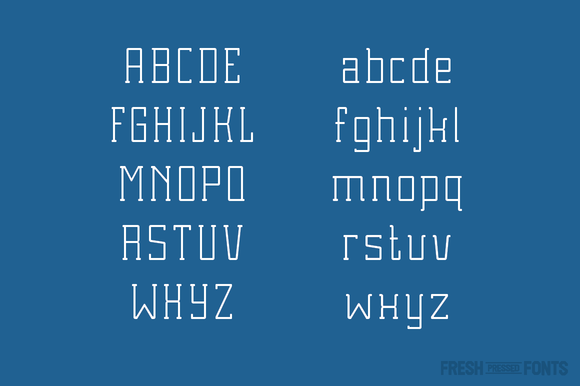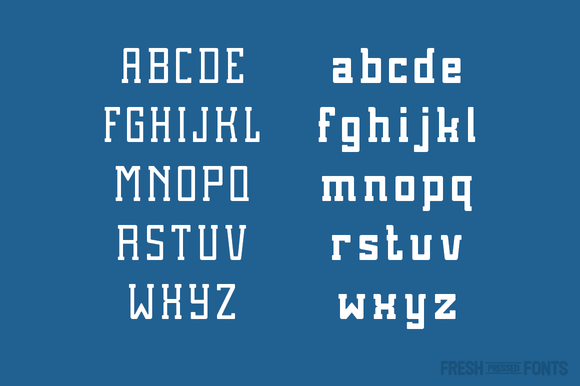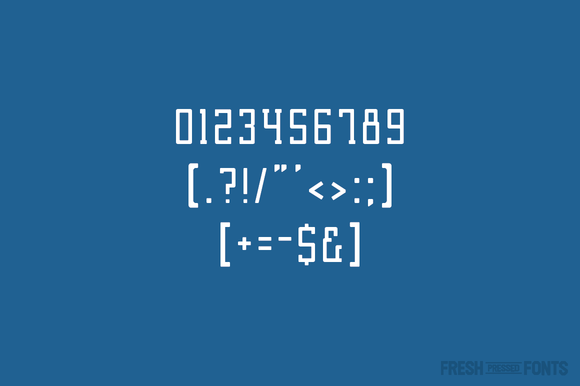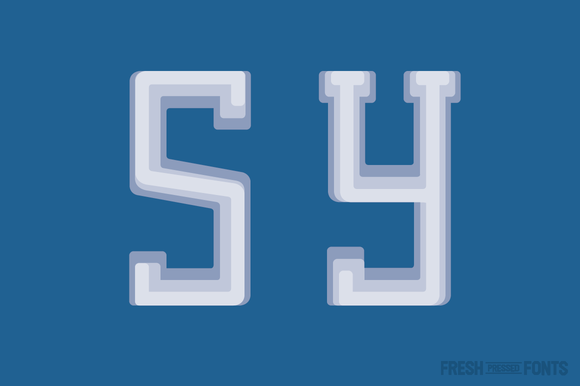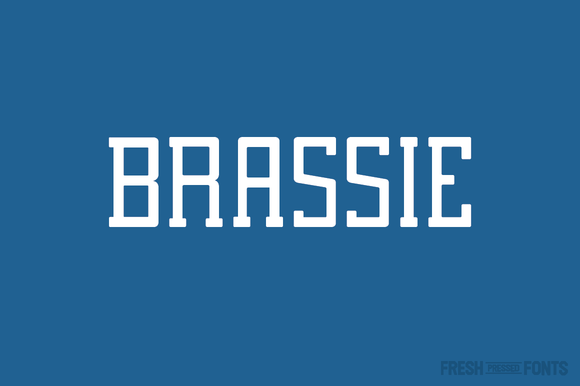
Introducing the Brassie Family Font: A Versatile Typeface with a Sports Twist
Are you a designer or crafter looking for a font that combines geometric precision with a touch of smoothness? Look no further than the Brassie Family Font. This exciting new typeface is designed to be versatile, sports-inspired, and visually appealing. In this article, we’ll take a closer look at the Brassie Family Font, its features, and how it can elevate your design projects.
The Inspiration Behind Brassie
The Brassie Family Font is named after a type of golf club, reflecting its sports inspiration and influence. The font’s design is rooted in geometric shapes, with slightly rounded edges that evoke the smooth, flowing motion of a golf swing. The result is a typeface that is both modern and approachable, with a unique character that sets it apart from more traditional fonts.
The Brassie Family: A Range of Options
The Brassie Family Font includes three distinct weights: Brassie Light, Brassie Regular, and Brassie Bold. This range of options allows designers and crafters to choose the perfect version of the font for their project, whether they need a subtle, elegant look or a bold, attention-grabbing statement.
- Brassie Light: Ideal for body text, captions, or other applications where a light, airy feel is desired.
- Brassie Regular: The core weight of the font, suitable for a wide range of design projects, from headings to paragraphs.
- Brassie Bold: Perfect for headlines, titles, or other applications where a strong, assertive look is needed.
Design Features and Benefits
The Brassie Family Font boasts a range of design features that make it an attractive choice for designers and crafters. Some of the key benefits include:
- Geometric base: Provides a solid, modern foundation for the font.
- Slightly rounded edges: Adds a touch of smoothness and elegance to the font.
- Versatile: Suitable for a wide range of design projects, from sports-themed designs to more traditional applications.
- Highly legible: Easy to read, even at small sizes.
Using the Brassie Family Font in Your Designs
The Brassie Family Font is an excellent choice for a variety of design projects, including:
- Branding and logos: The font’s unique character and range of weights make it perfect for creating memorable logos and brand identities.
- Headings and titles: The Brassie Bold weight is ideal for grabbing attention and adding emphasis to headings and titles.
- Body text: The Brassie Regular and Light weights are suitable for body text, providing a clear and readable format for paragraphs and articles.
- Signage and display text: The font’s geometric base and smooth edges make it an excellent choice for signage and display text.
The Brassie Family Font is an exciting new typeface that offers a unique blend of geometric precision, sports inspiration, and versatility. With its range of weights, smooth edges, and highly legible design, this font is perfect for designers and crafters looking to add a touch of modern elegance to their projects. Whether you’re working on a sports-themed design or a more traditional application, the Brassie Family Font is sure to impress.